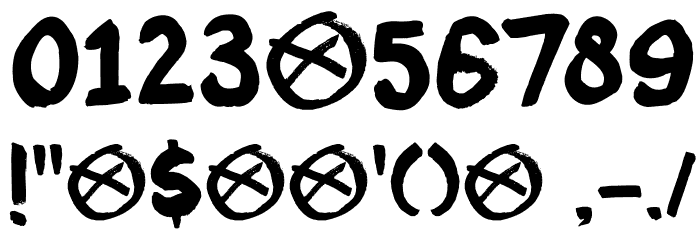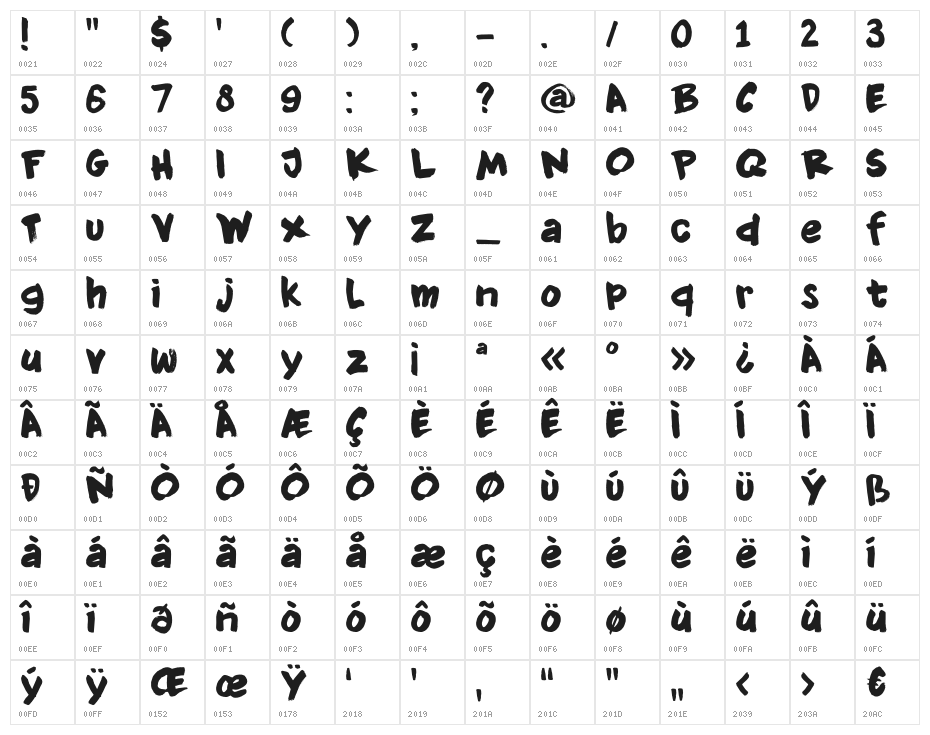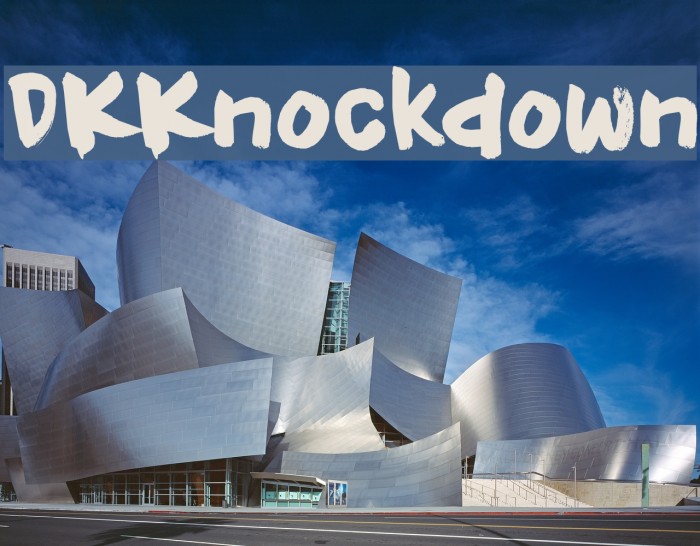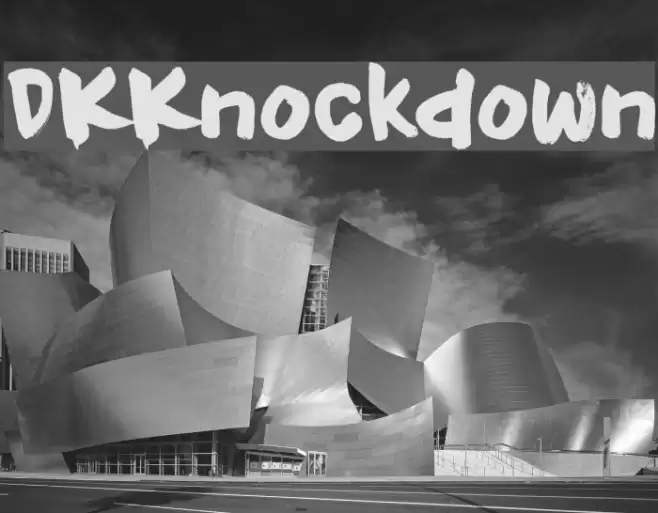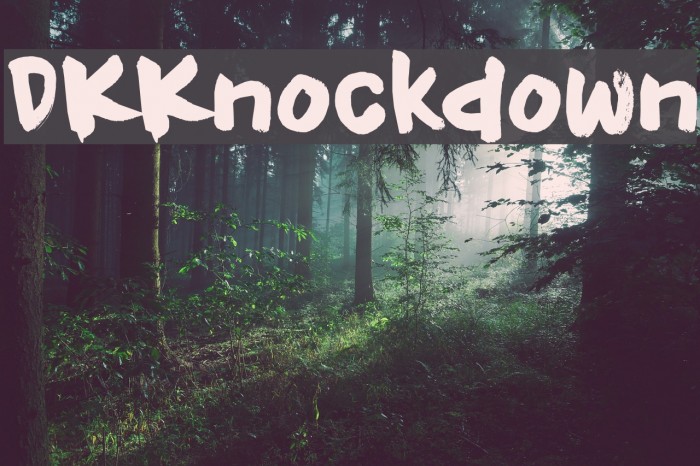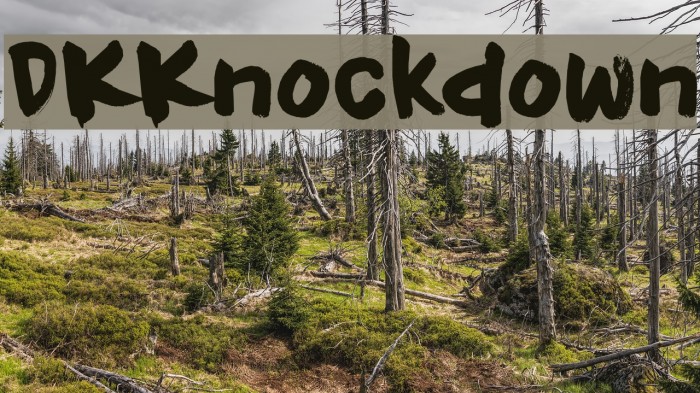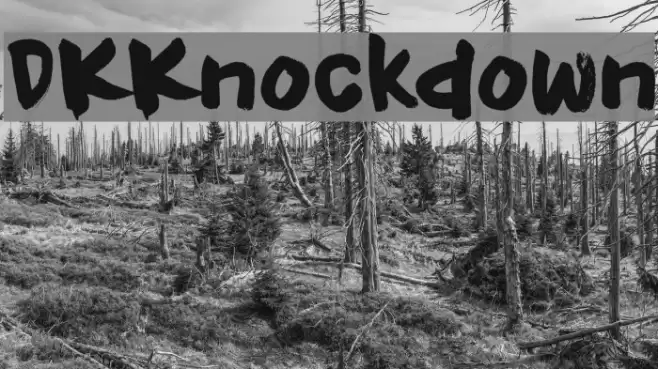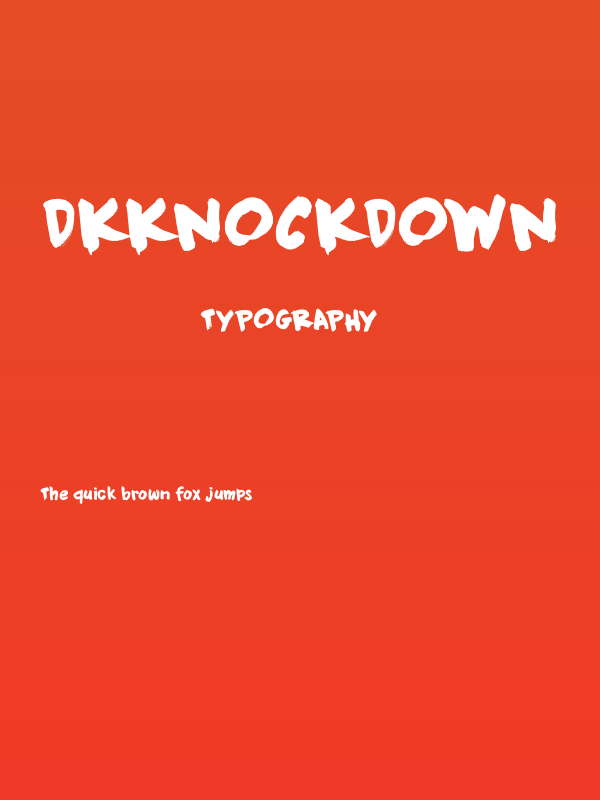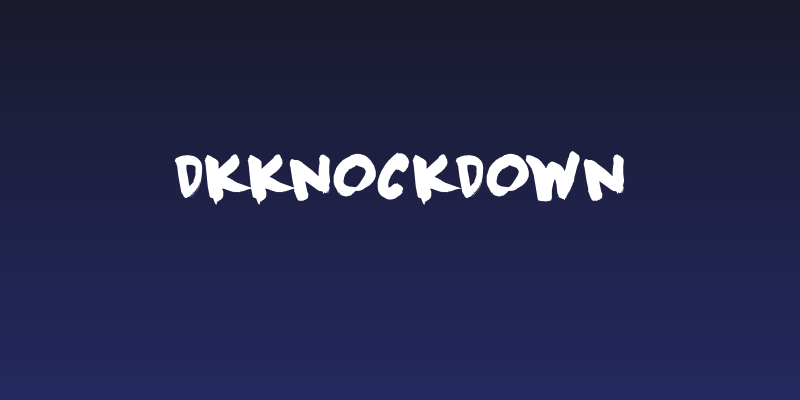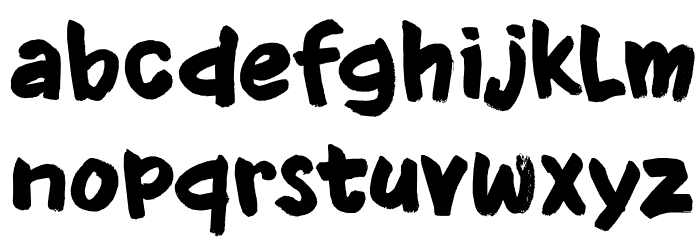
DKKnockdown Font
DKKnockdown Description
This font exhibits a bold, energetic style with a hand-painted appearance. The characters are thick and expressive, with an uneven texture that suggests a brushstroke effect. The uppercase and lowercase letters maintain a consistent boldness, while the numbers and special characters share the same dynamic quality. The font's irregular edges and varying stroke widths contribute to its lively and informal aesthetic, making it stand out with a playful and artistic vibe.
| Proposed Projects | Ideal for creative projects such as posters, album covers, and branding that require a bold and artistic touch. |